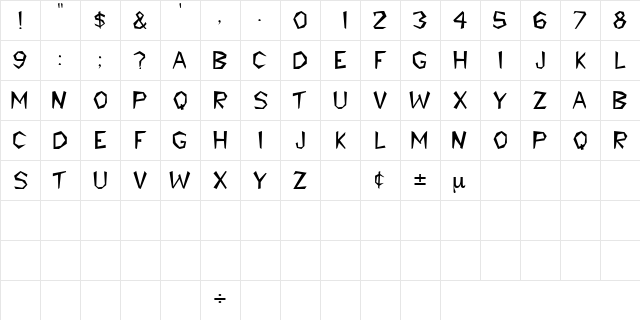
TribalDisplayCapsSSK Regular
Design Context for TribalDisplayCapsSSK Typeface
TribalDisplayCapsSSK brings ornamental detail and strong personality to headlines and identities, where visual impact matters more than quiet functionality.
Font Pairing: Pair with a clean neutral sans-serif for body copy to let TribalDisplayCapsSSK's character lead without overwhelming the composition.
Pro Tip: Treat TribalDisplayCapsSSK as the centrepiece of your typographic hierarchy. One strong heading set in a decorative face can carry an entire layout.